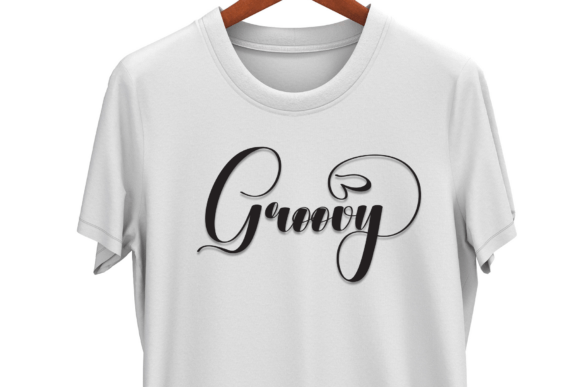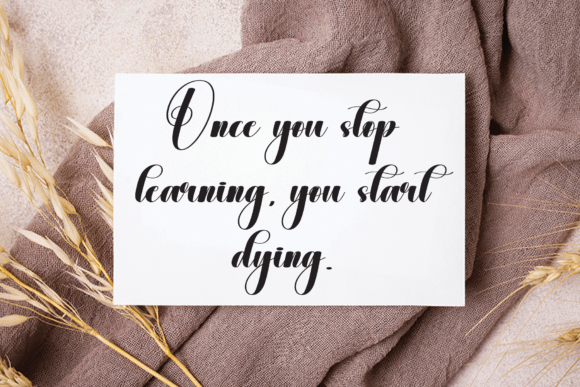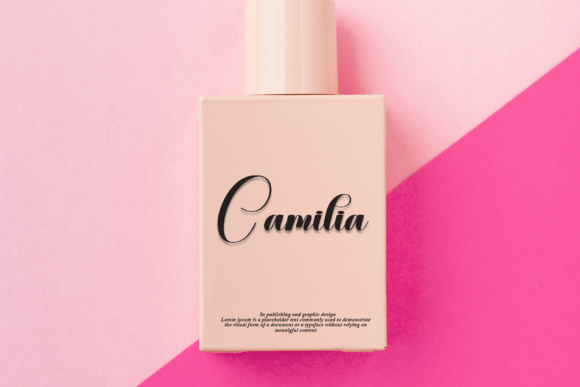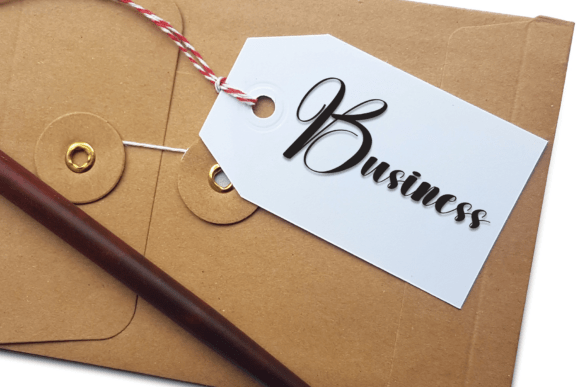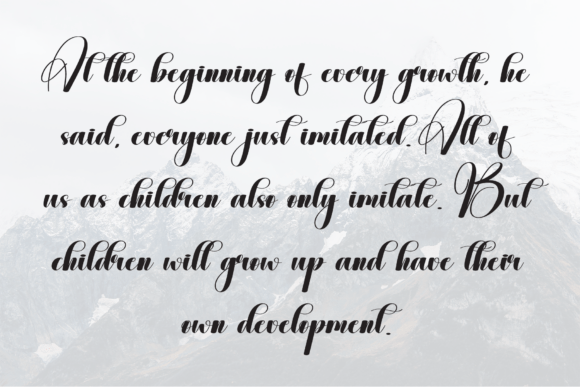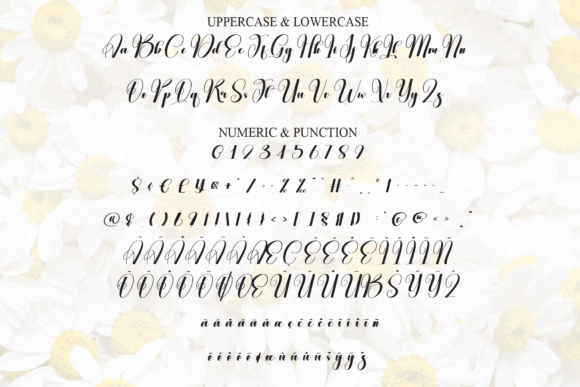
The Perfect Brushstroke: Discovering the Beauty of Daisy Font
As a designer, there’s no feeling quite like the thrill of bringing a creative idea to life. You’re brainstorming, sketching, and experimenting – and suddenly, the perfect combination of typography and color appears on your screen. For many designers, this moment is the culmination of hours of research and trial-and-error, but it’s also what makes the process so rewarding.
For those seeking to elevate their designs, we’d like to introduce you to the Daisy Font – a stylish script font that captures the essence of hand-painted calligraphy with a modern twist. With its fluid brush strokes, dynamic curves, and expressive letterforms, this font is perfect for logos, invitations, packaging, and social media graphics. The Daisy Font adds a creative and sophisticated touch to any design, making it an invaluable asset for designers of all levels.
Daisy Font Key Features
- Unique Characteristics: The font features a unique blend of modern and classic design elements, with a focus on readability and aesthetics.
- Font Style: Daisy Font comes in a range of styles, including regular, bold, italic, and bold italic, offering users flexibility in their typography choices.
Daisy Font Review
I recently had the chance to work with the Daisy Font, and I must say it’s a beautiful and elegant addition to any design project. ✨ The font’s subtle curves and gentle lines evoke a sense of warmth and friendliness, making it perfect for designs that need to convey approachability and professionalism.
One of the standout features of the Daisy Font is its versatility. ✨ It works equally well in digital and print formats, and its readability makes it suitable for a wide range of font sizes and styles. Whether you’re designing a brochure, a website, or a social media graphic, the Daisy Font is a great choice.
- ⚠️ The font may not be suitable for designs that require a bold or dramatic look, as it tends to lean towards a more subtle and understated aesthetic.
- ⚠️ Some users may find the font’s lines and curves to be a bit too delicate, which can make it difficult to read at very small font sizes.
Overall, I’m really impressed with the Daisy Font. It’s a beautiful and versatile addition to any design project, and its readability and elegance make it a great choice for a wide range of designs. While it may not be suitable for every project, it’s definitely a font worth considering for designs that need to convey approachability and professionalism.
Daisy Font is a versatile font that can be used for various purposes, including:
– Children’s book illustrations
– Food and beverage branding
For best results, use Daisy Font in conjunction with bright and playful colors to create a whimsical and eye-catching design.